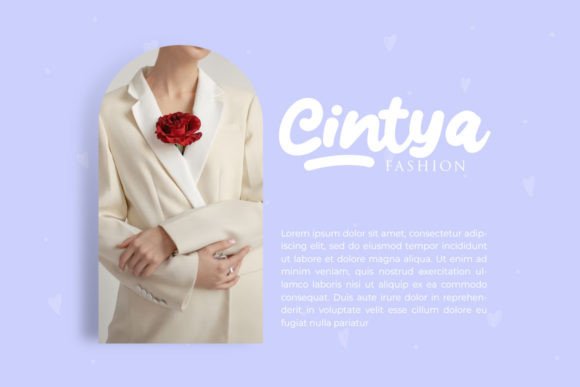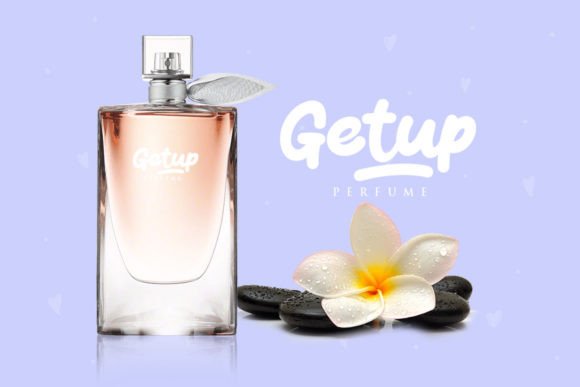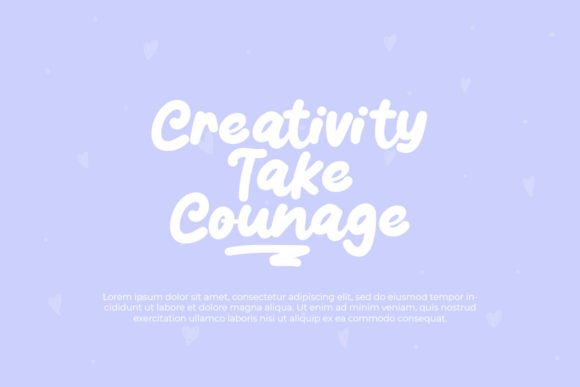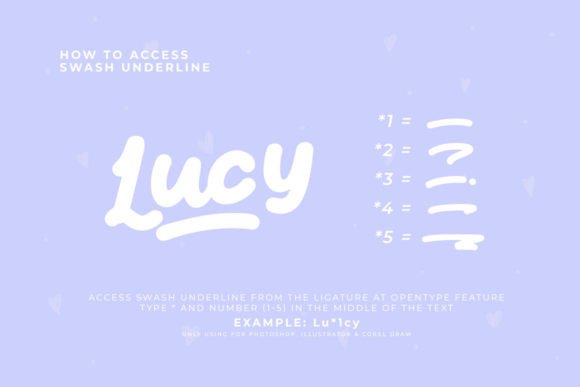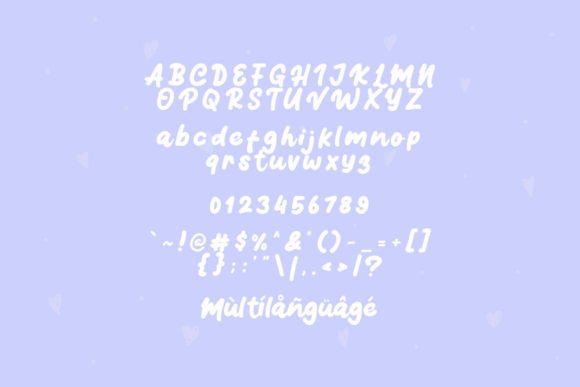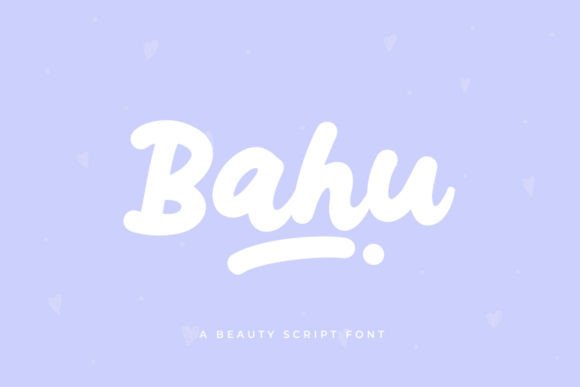
Bahu Font: The Ultimate Guide to Elevate Your Design Projects
Are you tired of using the same old fonts in your design projects? Look no further than Bahu Font, a fresh and unique handwritten font that’s sure to add a touch of personality to any design. With its playful and delicate vibe, Bahu Font is the perfect choice for designers and crafters looking to create stunning visual content.
What is Bahu Font?
Bahu Font is a modern, handwritten font that’s designed to inspire creativity and add a touch of whimsy to your design projects. Its unique twist on traditional handwriting makes it stand out from the crowd, and its delicate lines and curves give it a charming, feminine feel.
Key Features of Bahu Font
- Unique and Fresh Design: Bahu Font boasts a one-of-a-kind design that’s sure to grab attention. Its fresh and modern take on handwriting makes it perfect for designers looking to add a touch of personality to their work.
- Playful and Delicate Vibe: The font’s playful and delicate vibe makes it perfect for designs that require a touch of whimsy and charm. Whether you’re creating a logo, social media graphics, or a website, Bahu Font is sure to add a touch of magic to your design.
- Handwritten with Love: Bahu Font is carefully crafted with love and attention to detail, giving it a personal and human touch that’s hard to find in digital fonts.
- Multipurpose: Whether you’re a designer, crafter, or DIY enthusiast, Bahu Font is the perfect choice for a wide range of design projects, from branding and advertising to crafting and scrapbooking.
How to Use Bahu Font in Your Design Projects
Using Bahu Font in your design projects is easy and straightforward. Here are a few tips to get you started:
- Pair it with Bold Fonts: Pair Bahu Font with bold, sans-serif fonts to create a striking contrast that adds visual interest to your design.
- Use it for Headings and Titles: Bahu Font is perfect for headings and titles, where its playful and delicate vibe can add a touch of personality to your design.
- Add it to Your Branding: Use Bahu Font as part of your branding identity to add a touch of whimsy and charm to your logo, website, and marketing materials.
Benefits of Using Bahu Font
So why choose Bahu Font for your design projects? Here are just a few benefits of using this unique and fresh font:
- Stand Out from the Crowd: Bahu Font is a one-of-a-kind font that’s sure to grab attention and set your design apart from the competition.
- Add a Touch of Personality: With its playful and delicate vibe, Bahu Font is the perfect choice for designers looking to add a touch of personality to their work.
- Easy to Read and Understand: Despite its unique design, Bahu Font is easy to read and understand, making it perfect for body text and other applications where legibility is key.
Who is Bahu Font for?
Bahu Font is perfect for a wide range of designers and crafters, including:
- Graphic Designers: Whether you’re creating logos, brochures, or social media graphics, Bahu Font is the perfect choice for adding a touch of personality to your design.
- Crafters and DIY Enthusiasts: Bahu Font is perfect for crafters and DIY enthusiasts looking to add a touch of whimsy and charm to their projects, from scrapbooking to crafting.
- Web Designers: Use Bahu Font to add a touch of personality to your website, from headings and titles to body text and more.
| Author | suzurantype |
In conclusion, Bahu Font is a fresh and unique handwritten font that’s sure to add a touch of personality to any design project. With its playful and delicate vibe, Bahu Font is the perfect choice for designers and crafters looking to create stunning visual content. Whether you’re a seasoned designer or just starting out, Bahu Font is a must-have font that’s sure to inspire creativity and take your designs to the next level.